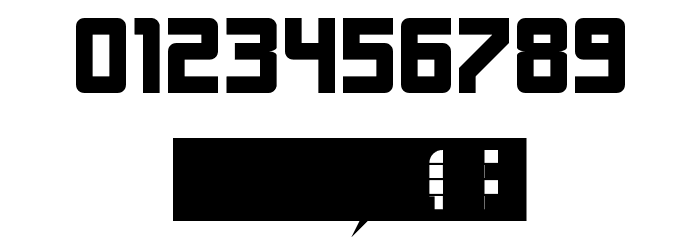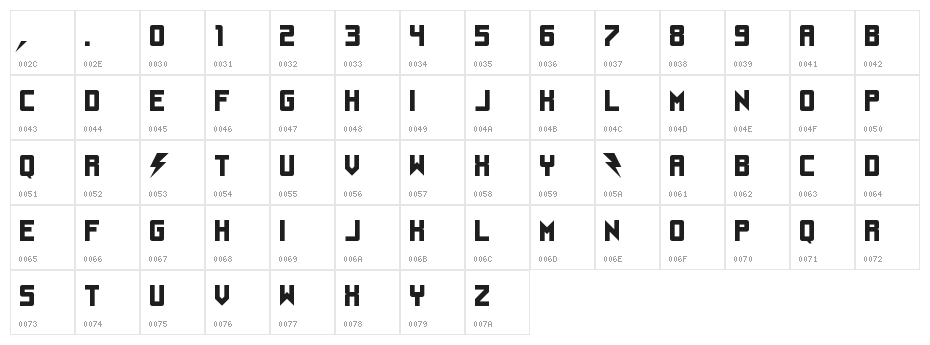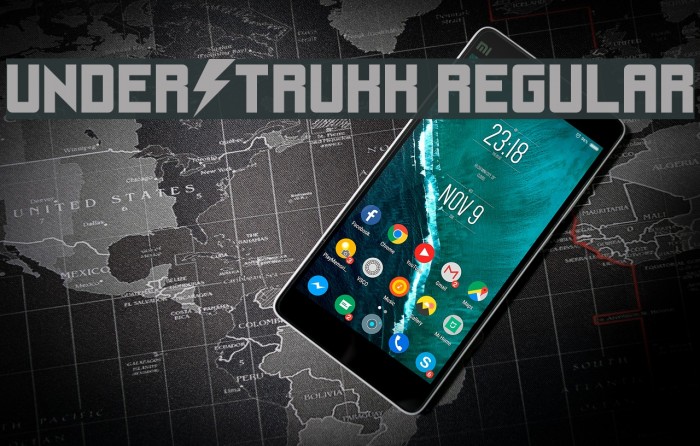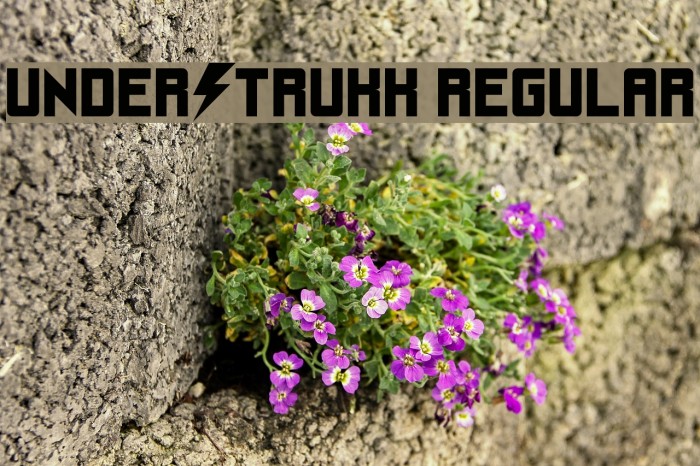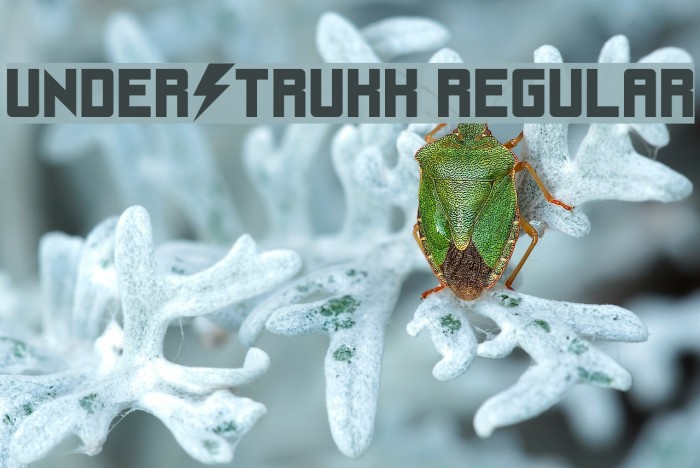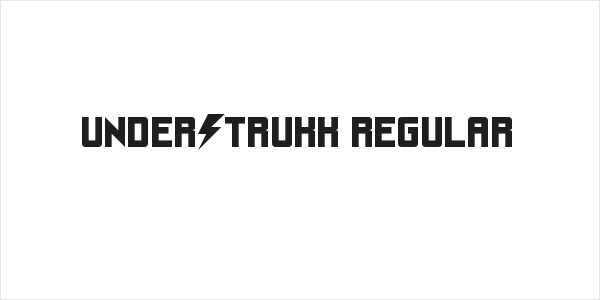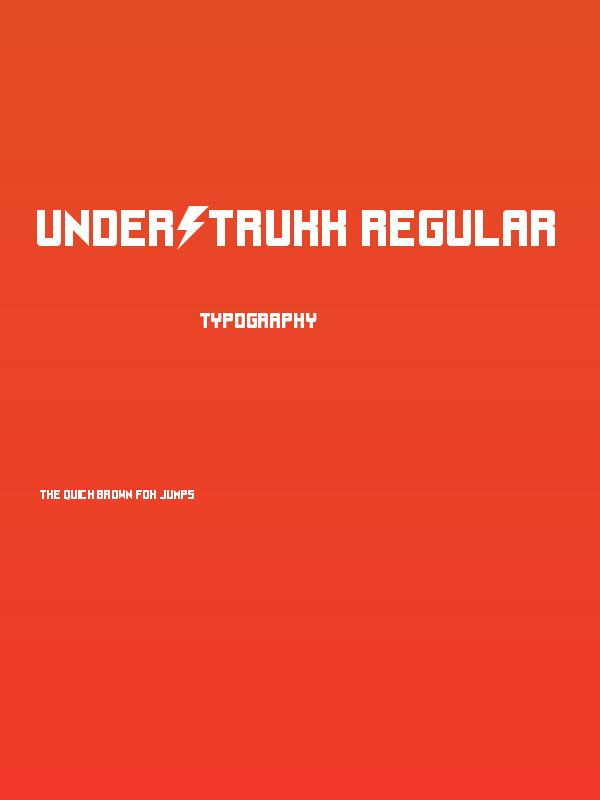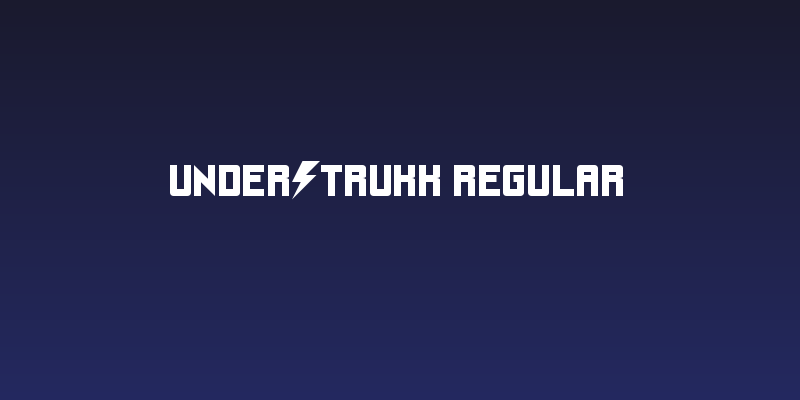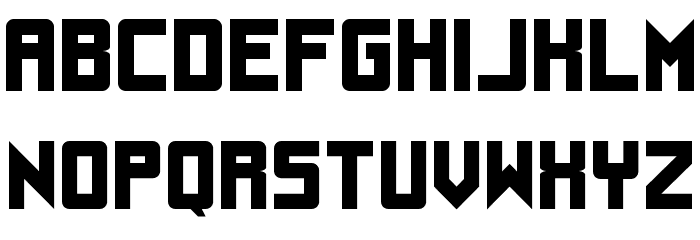
UnderStrukk Regular Font
UnderStrukk Regular Description
This font features a bold, geometric design with strong, angular lines and a modern aesthetic. The uppercase letters are particularly striking, with unique elements such as lightning bolt motifs integrated into the characters. The numbers and special characters maintain the bold, blocky style, ensuring consistency across all glyphs. The overall appearance is dynamic and attention-grabbing, making it suitable for impactful designs. The font's structure is clean and precise, with a uniform thickness that adds to its robust feel.
| Proposed Projects | Ideal for branding, posters, and any project requiring a bold, modern look. |